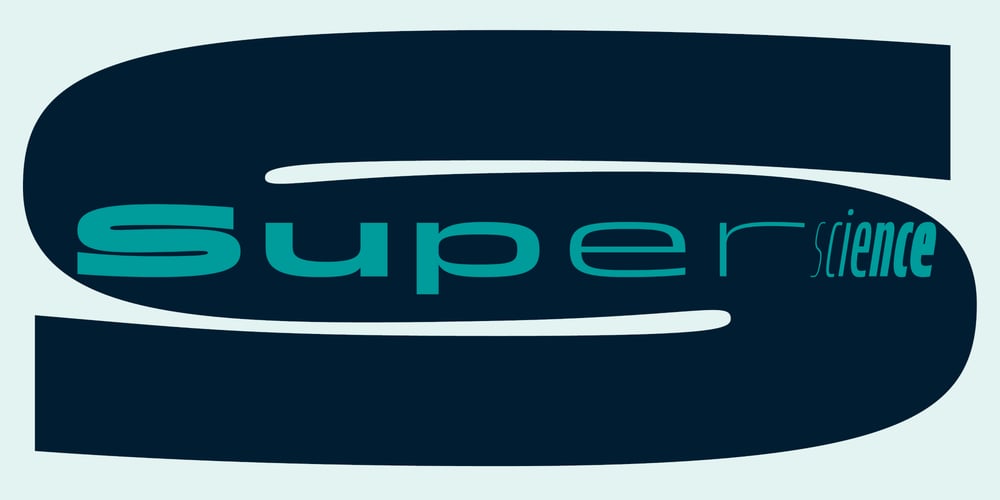
Superscience Font Family was designed by František Štorm and published by Storm Type Foundry. Superscience contains 98 styles and family package options. A font drawn in a rounded rectangle looks modern – if we do not mind that it was in vogue mainly in the 80s of the last century and was created in the fifties, when various Italian designers noticed that the outline of a glass TV screen is actually the letter “o“. Since then, this progressive idea has undergone many improvements, which can be summarized in the notion of “popular-scientific typographic revival”. The present incarnation called “Superscience” has the advantage of having extreme variations and nicely simplified letters, as well as the usual repertoire of OTF functions and playful variations.